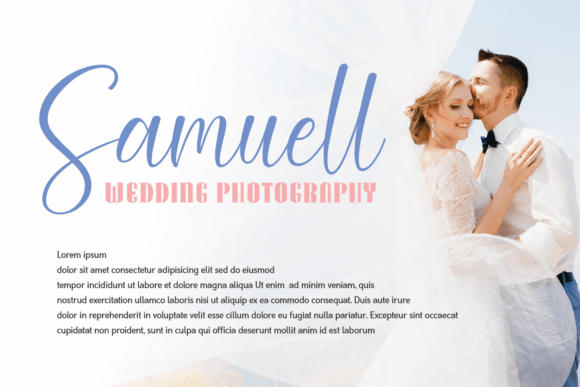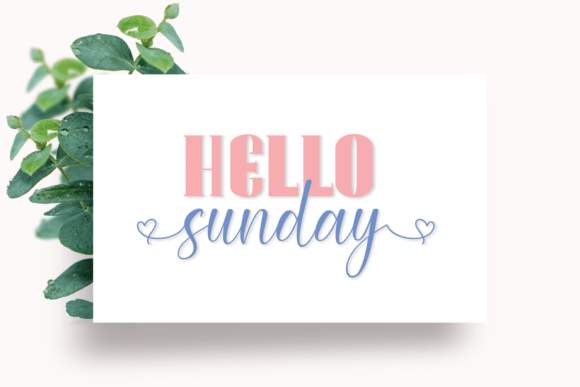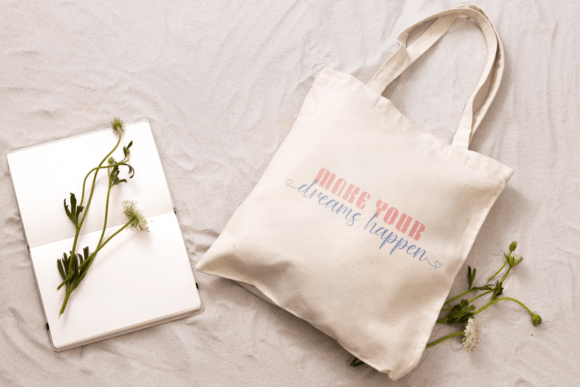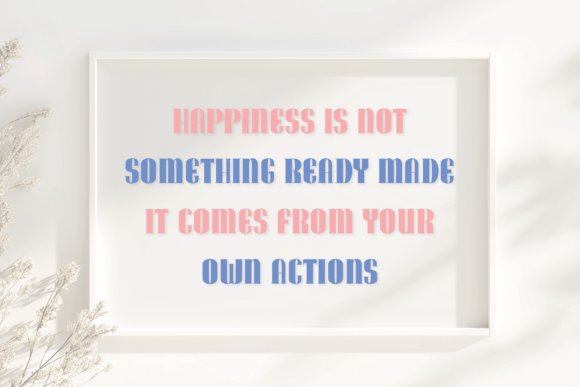
Introducing Astelin Font: Elevate Your Design Game
I’ll never forget the design struggle is real! I was working on a project, pouring my heart and soul into it, when I hit a roadblock – finding the perfect font. My client wanted something that exuded elegance and sophistication, but also had a playful touch. I scoured the internet, tried out countless fonts, but nothing seemed quite right. That was until I stumbled upon Astelin Duo, a game-changing typographic creation that has become my go-to font ever since.
What is Astelin Font?
Astelin Duo is a unique typeface that features a dynamic duo of display and script fonts, seamlessly amalgamating style and versatility. This distinctive font boasts an inherent dexterity, making it suitable for a broad variety of applications – from emphatic headers to captivating captions. With Astelin Duo, you can elevate your design game and add a touch of sophistication to your projects.
- ✨ Elegant aesthetic appeal that adds a touch of sophistication to any design
- ✅ Versatile and flexible, suitable for a wide range of applications
- 💫 Dynamic duo of display and script fonts that can be used together or separately
- 🎉 OpenType features and glyphs that allow for endless creative possibilities
- ⚠️ Some users may find the font a bit too elegant for casual or playful designs
- 🤔 Limited availability of certain glyphs or special characters
Astelin Duo was created by a team of designers who wanted to craft a font that would cater to the needs of modern designers. Inspired by the world of fashion and luxury, they aimed to create a font that exuded elegance and sophistication, while also being versatile and flexible. The result is a font that has become a staple in many designers’ toolkits.
Q: What is Astelin Duo?
A: Astelin Duo is a unique typeface that features a dynamic duo of display and script fonts, designed to cater to the needs of modern designers.
Q: Is Astelin Duo suitable for body text?
A: While Astelin Duo is primarily designed for display and headline use, it can be used for body text in certain contexts. However, it’s recommended to use a clear and readable font for body text to ensure optimal legibility.